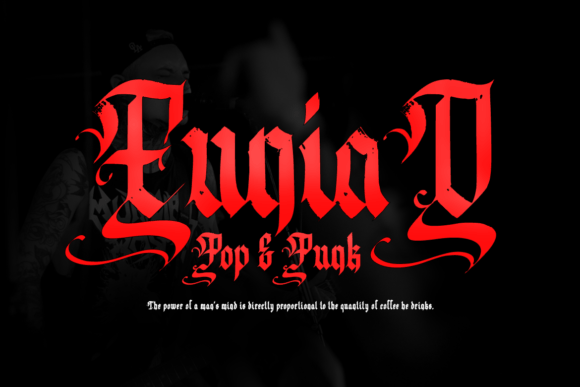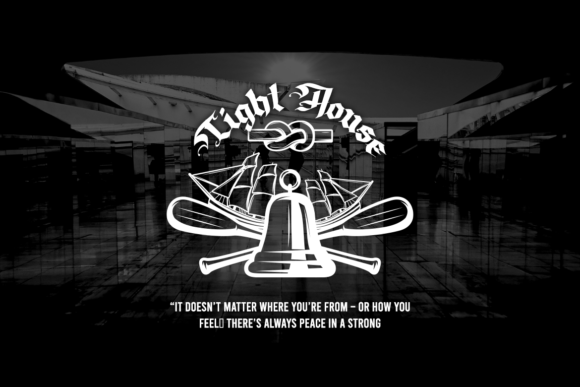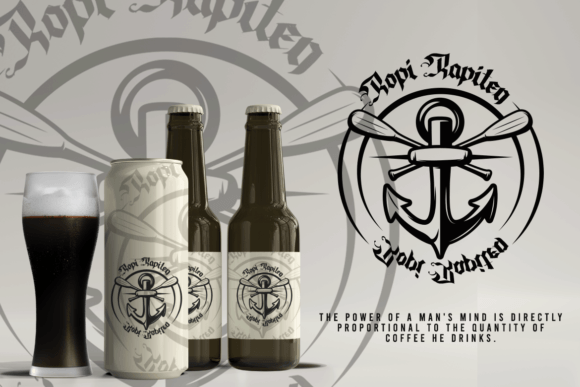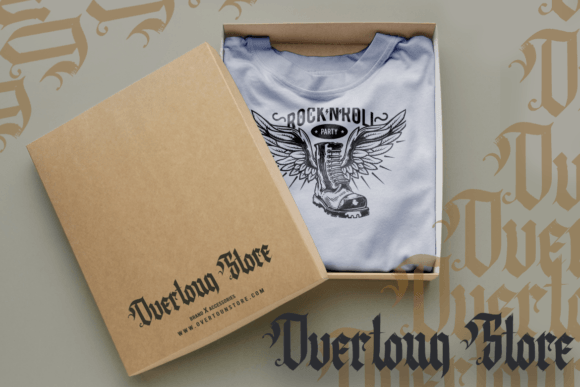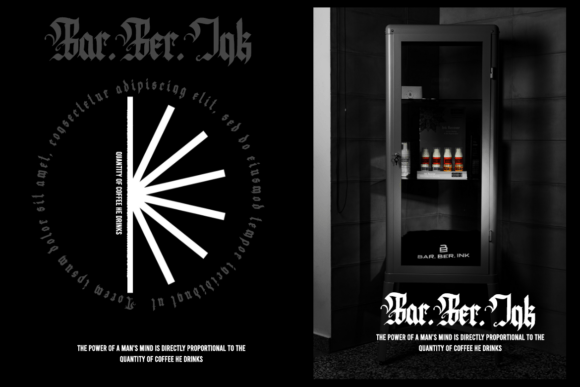
Unleash Elegance and Sophistication with Black Jack Font
Are you on the hunt for a font that exudes elegance, sophistication, and a touch of boldness? Look no further than the Black Jack Font, an exquisite blackletter font that is sure to elevate your designs to new heights. With its classic and stylish features, this font is perfect for designers and crafters seeking to add a dash of drama and flair to their projects.
The Essence of Black Jack Font
Black Jack is an elegant and classic blackletter font that boasts a timeless appeal. Its stylish features are designed to impress, making it an ideal choice for product packaging, branding, and other projects that require bold and daring typography. Whether you’re a designer, crafter, or simply a DIY enthusiast, this font is sure to captivate your audience and leave a lasting impression.
Key Features of Black Jack Font
- Elegant and Classic Design: Black Jack Font features an elegant and classic blackletter design that is sure to add a touch of sophistication to your projects.
- Stylish Features: With its stylish features, this font is perfect for designers and crafters seeking to add a dash of drama and flair to their designs.
- Bold and Daring Typography: Black Jack Font is designed to make a statement, making it ideal for projects that require bold and daring typography.
- Versatile: This font can be used for a wide range of projects, including product packaging, branding, and more.
Uses of Black Jack Font
Black Jack Font is a versatile font that can be used for a variety of projects, including:
- Product Packaging: Add a touch of elegance and sophistication to your product packaging with Black Jack Font.
- Branding: Use this font to create a bold and daring brand identity that will set you apart from the competition.
- Signage: Black Jack Font is perfect for creating eye-catching signage that will grab attention.
- Stationery: Add a touch of classic elegance to your stationery with this beautiful font.
- DIY Projects: Whether you’re a crafter or DIY enthusiast, Black Jack Font is a great addition to your design toolkit.
Tips for Using Black Jack Font
To get the most out of Black Jack Font, here are a few tips to keep in mind:
- Use it sparingly: Due to its bold and daring nature, it’s best to use Black Jack Font sparingly to avoid overwhelming your design.
- Pair it with contrasting fonts: Pair Black Jack Font with contrasting fonts to create visual interest and add depth to your design.
- Experiment with colors: Don’t be afraid to experiment with different colors to find the perfect combination that complements your design.
| Font Name | Black Jack Font |
| Author | meizzalunadesign |
In conclusion, Black Jack Font is an elegant and classic blackletter font that is sure to impress with its stylish features. With its bold and daring typography, this font is perfect for designers and crafters seeking to add a touch of drama and flair to their projects. Whether you’re working on product packaging, branding, or other projects, Black Jack Font is a great choice. So why wait? Download Black Jack Font today and unleash elegance and sophistication in your designs!